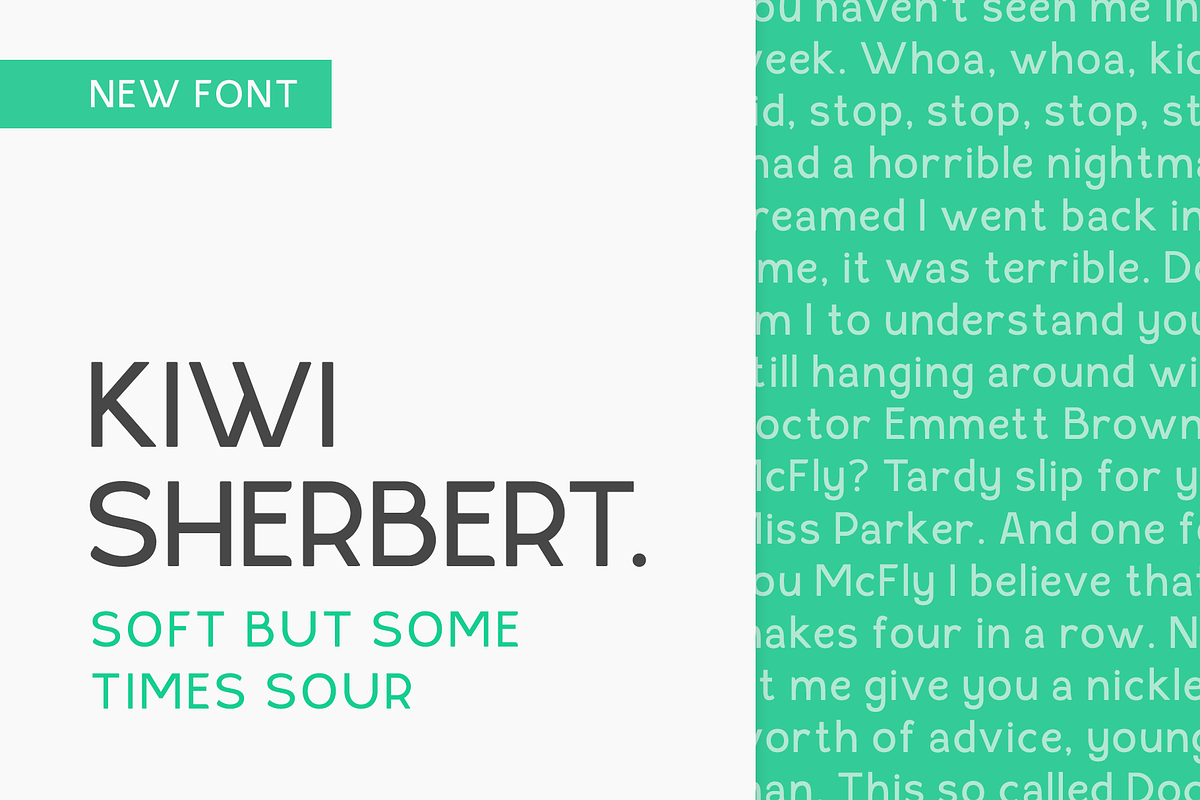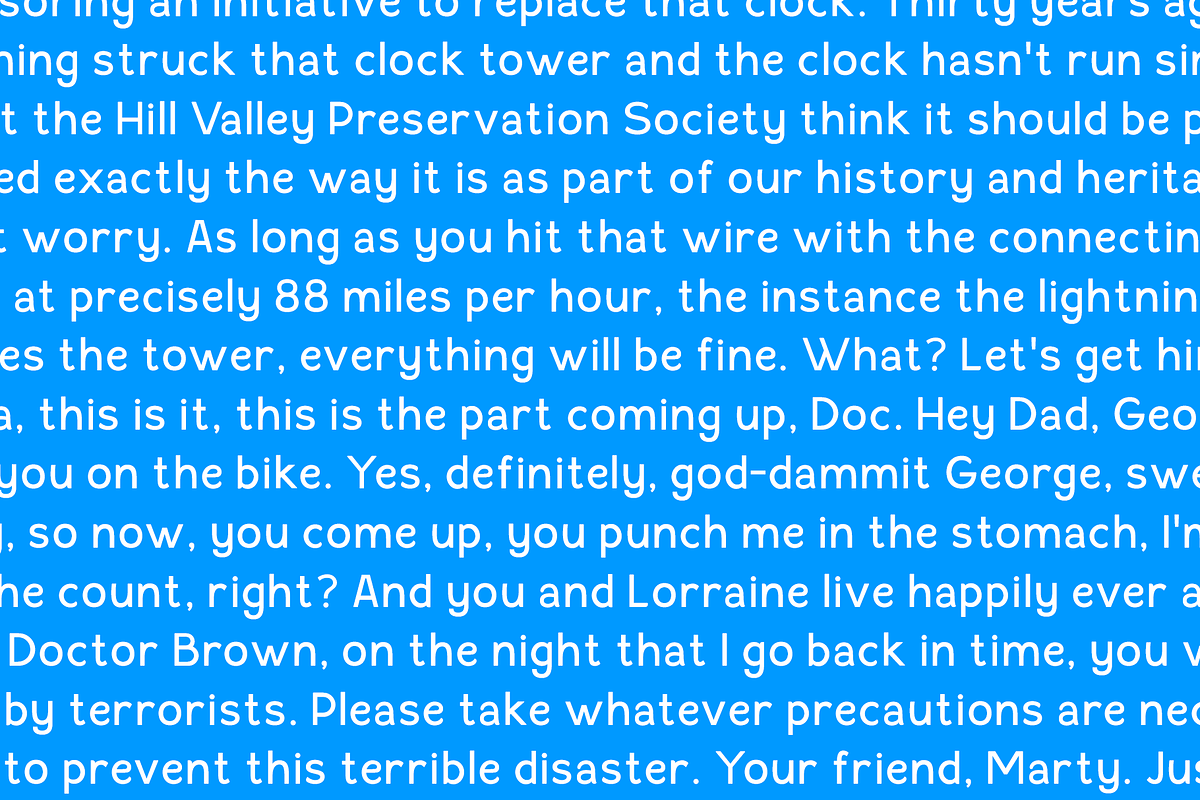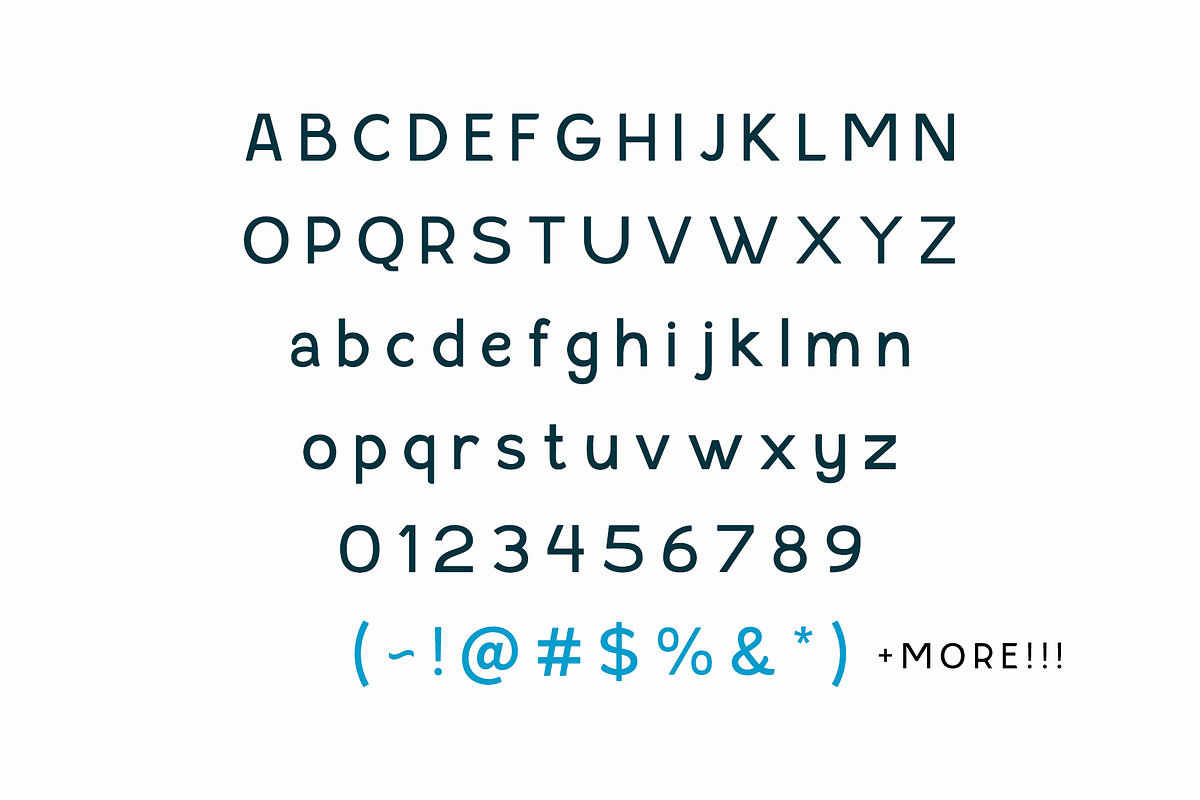
Kiwi Sherbert Display Font
Kiwi Sherbert is that fruit based font that brings a furry tartness to all your design needs. It's good ol' fashioned family font fun that everyone can enjoy!
Why Kiwi Sherbert Display Font is worth a look
Kiwi Sherbert Display Font by True North Creative fits naturally into Branding, posters, packaging, typography.